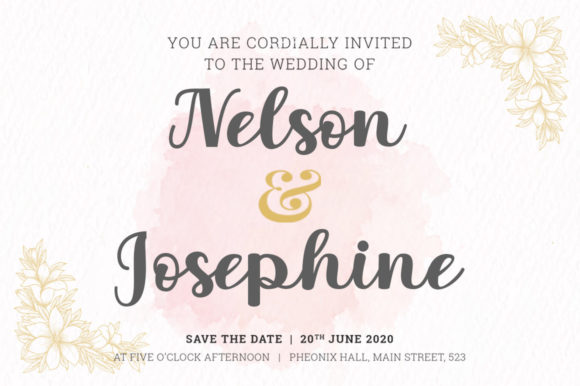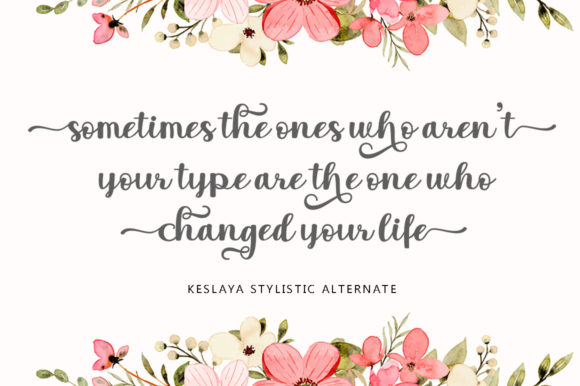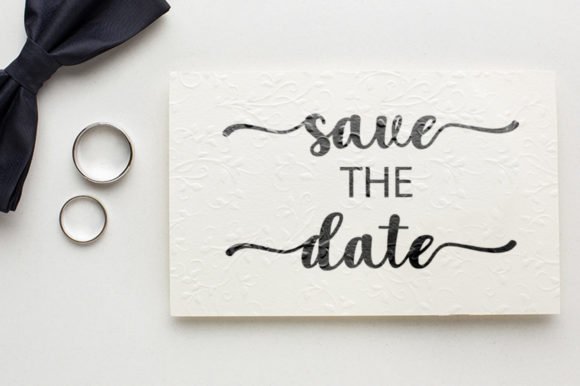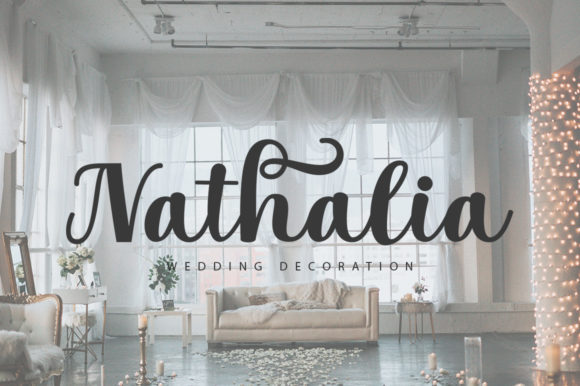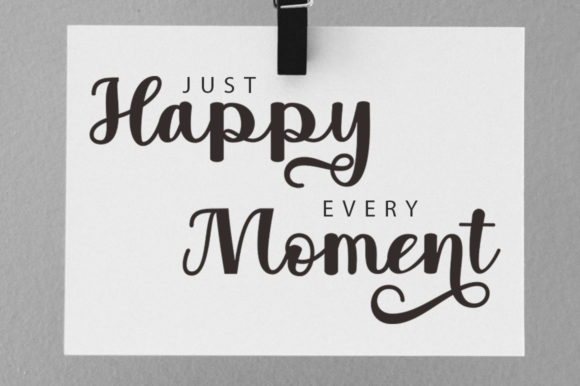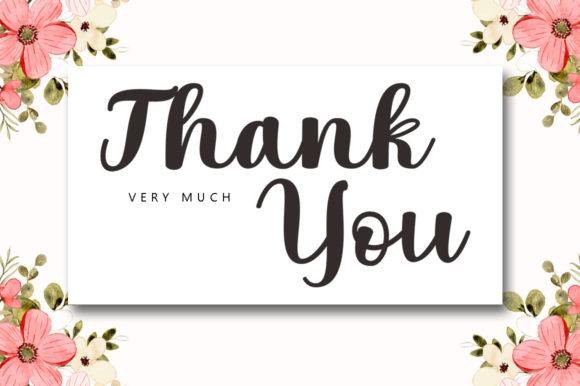
About Kesleya Font
Kesleya is a lovely and delicate script font that exudes elegance and class. This font was particularly crafted for those who need a beautiful and refreshing look to their designs.